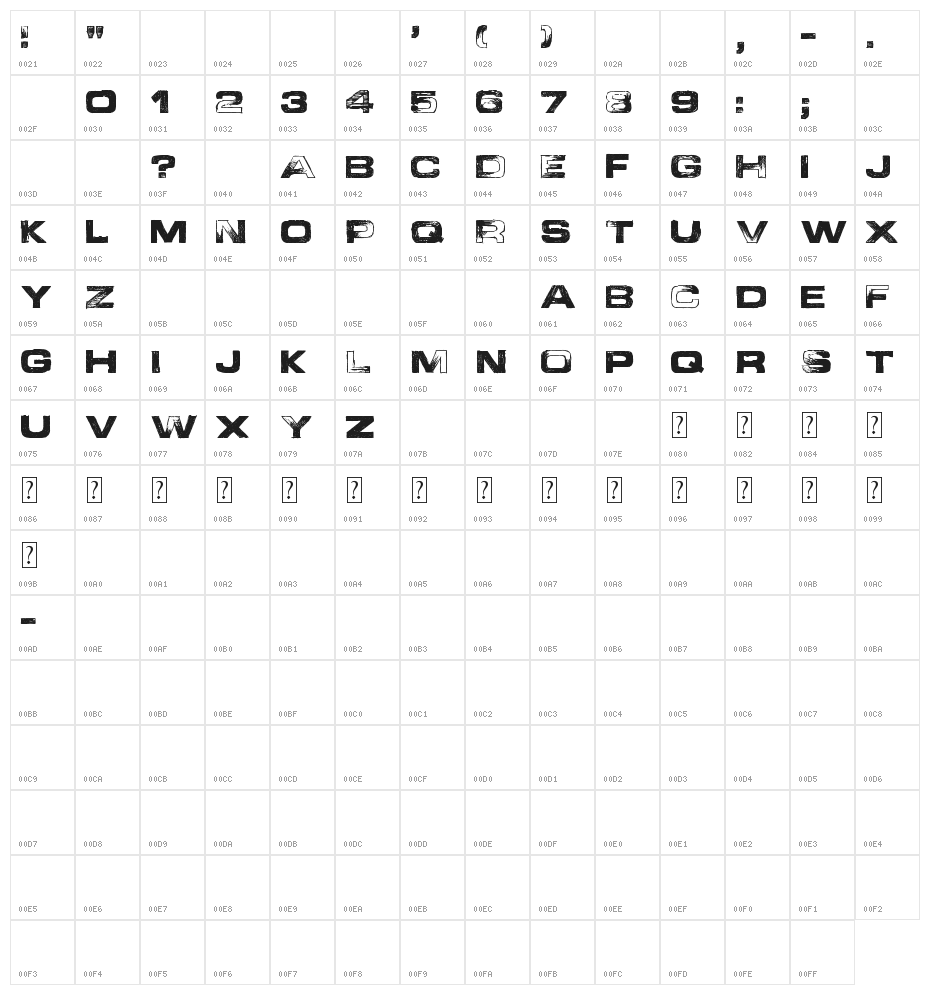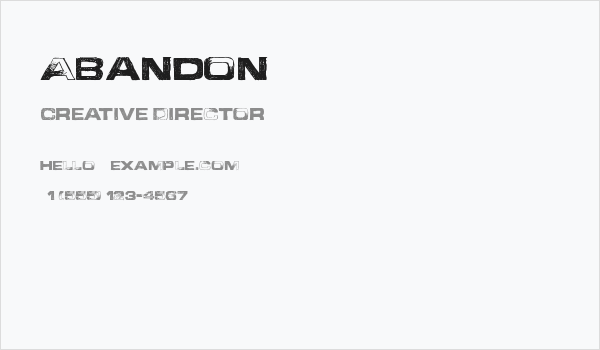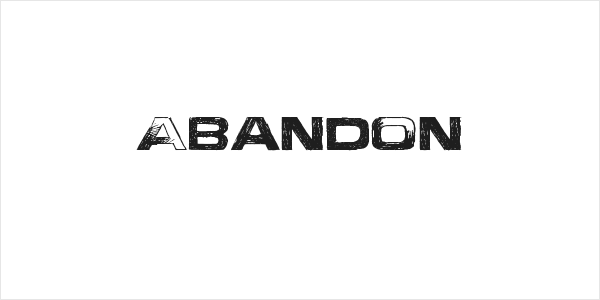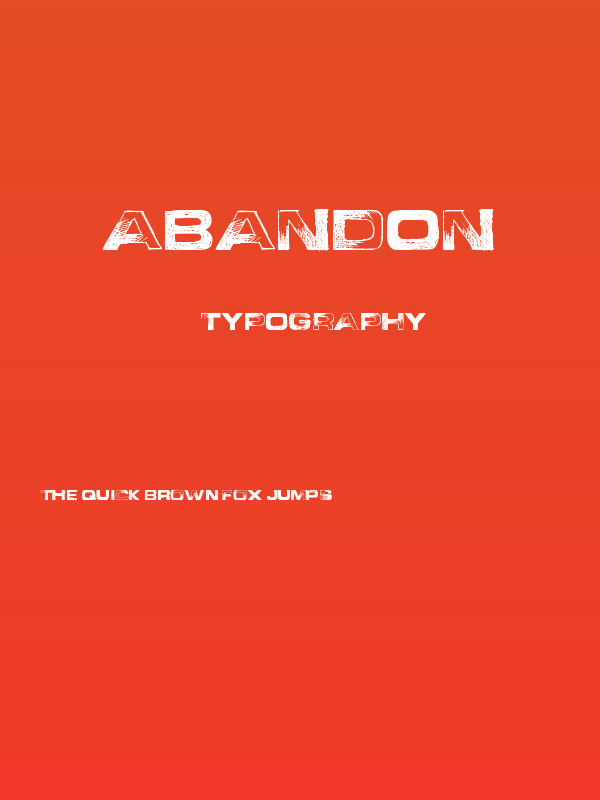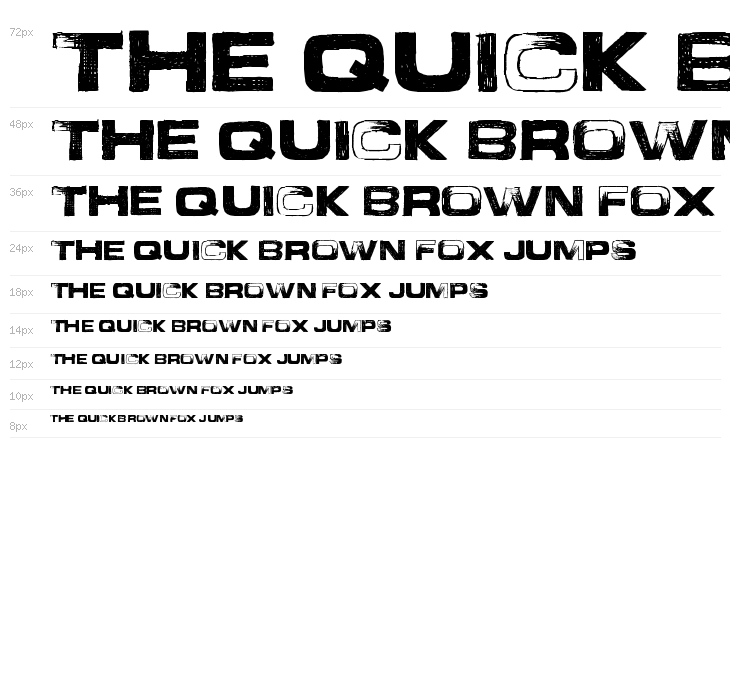
Abandon Font
Abandon Description
This font features a distressed, grunge style with a bold and impactful appearance. Each character is uniquely textured, giving it a worn and rugged look. The uppercase letters are particularly striking, with a heavy emphasis on boldness and a slightly uneven texture that adds to the overall distressed aesthetic. The numbers and special characters maintain this style, ensuring consistency across all glyphs. This font is ideal for projects that require a strong, edgy, and urban feel, making it perfect for posters, album covers, and other creative designs that aim to capture attention.
| Overall Style | Grunge, Urban, Edgy |
| Use Case | Headlines, Posters, Album covers |
| Proposed Projects | Ideal for posters, album covers, urban-themed designs, and any project needing a bold, edgy look. |